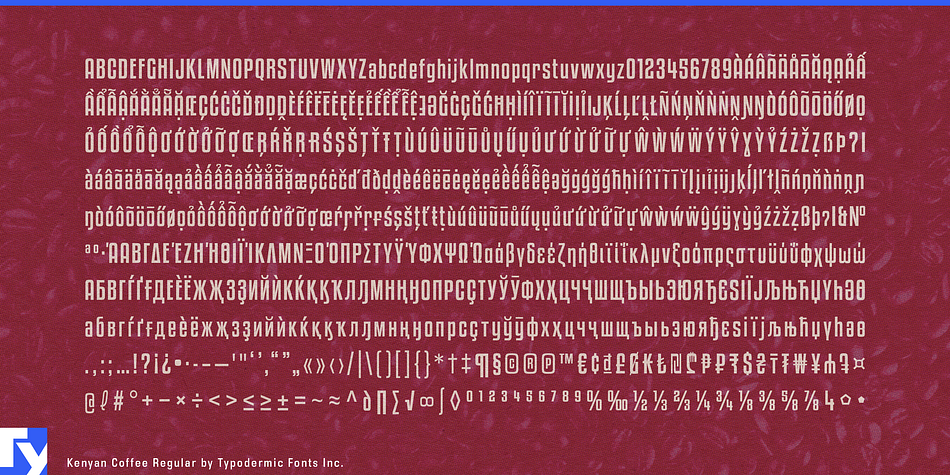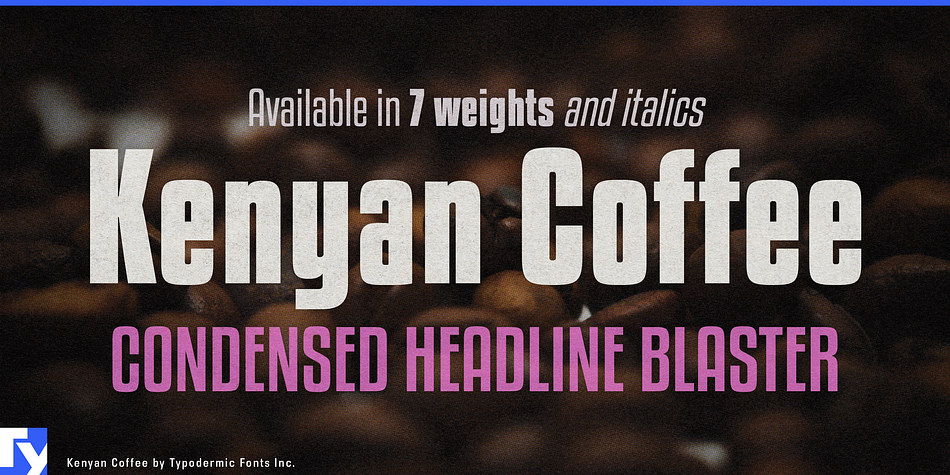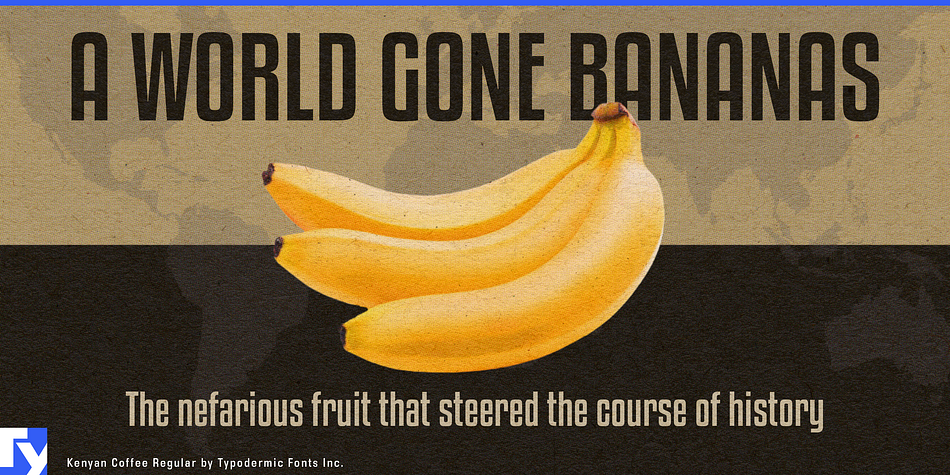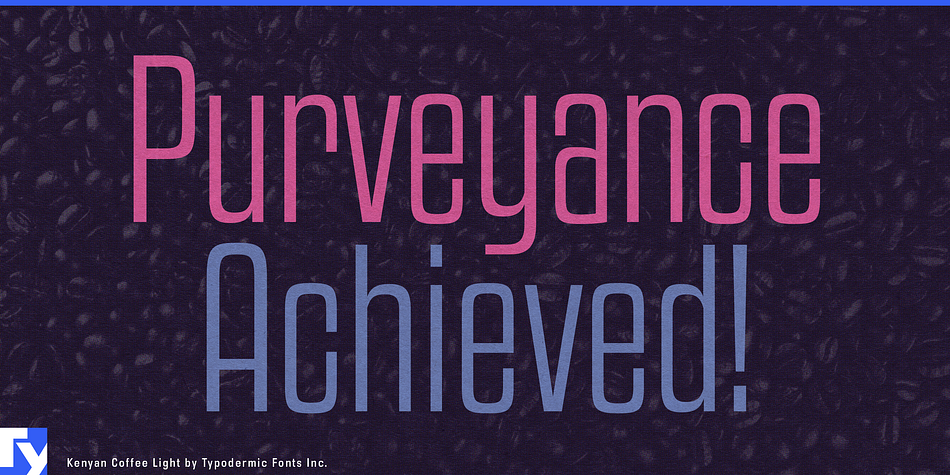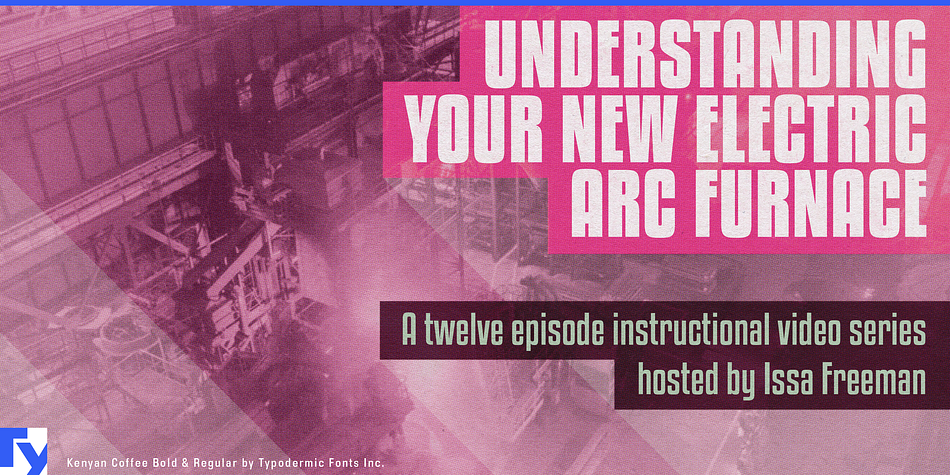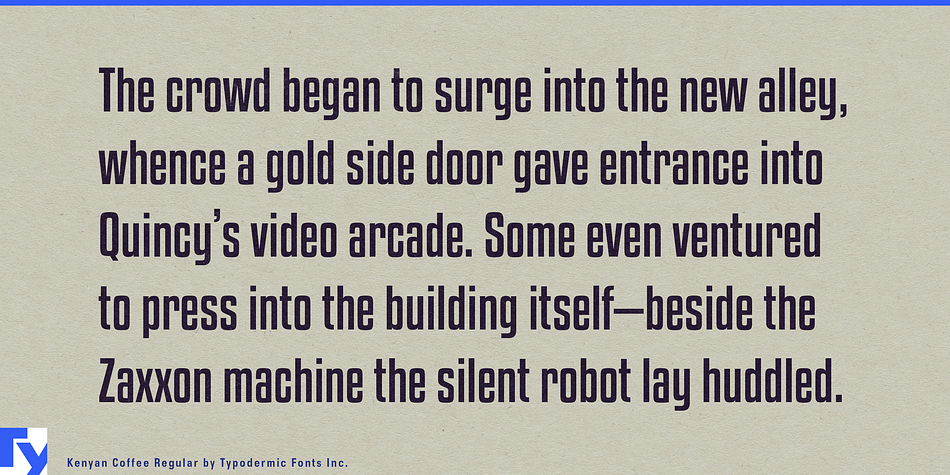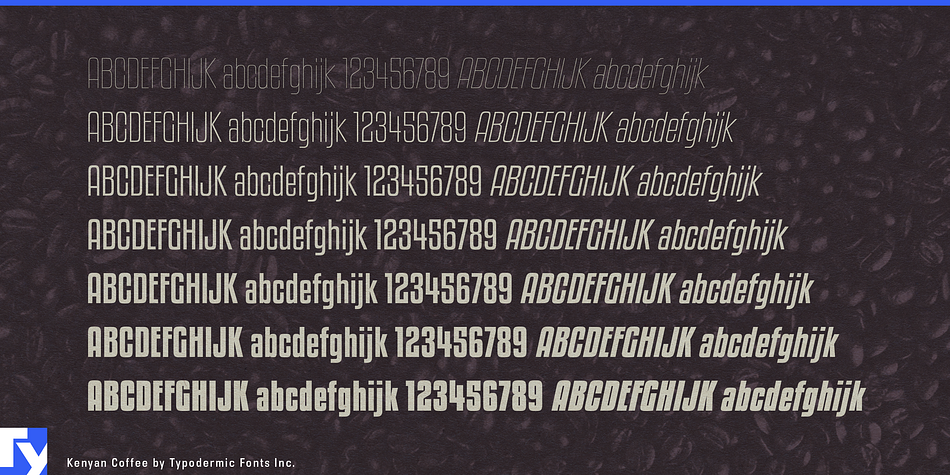
Kenyan Coffee is a display sans font family. This typeface has fourteen styles and was published by Typodermic Fonts Inc.
Kenyan Coffee is a slim, blocky display typeface inspired by compact headliners of the 1960’s. It’s available in 7 weights and italics. The commercial use desktop license for Regular, Italic, Bold & Bold-Italic is free.